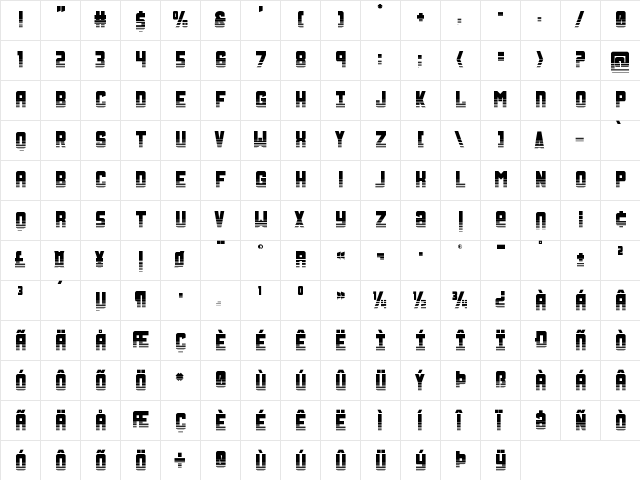
Urban Defender TwoTone Regular
Design Context for Urban Defender TwoTone Typeface
Urban Defender TwoTone takes a measured approach to typography — its balanced proportions and neutral character make it a reliable workhorse for both digital and print work.